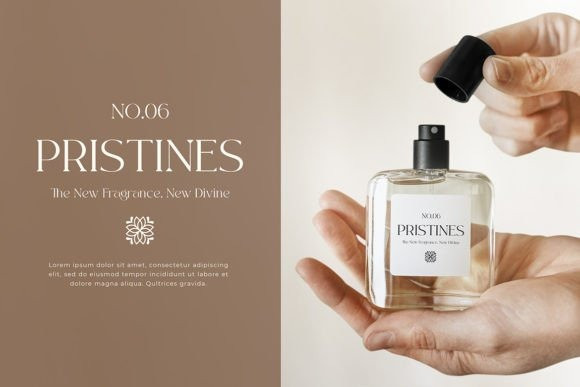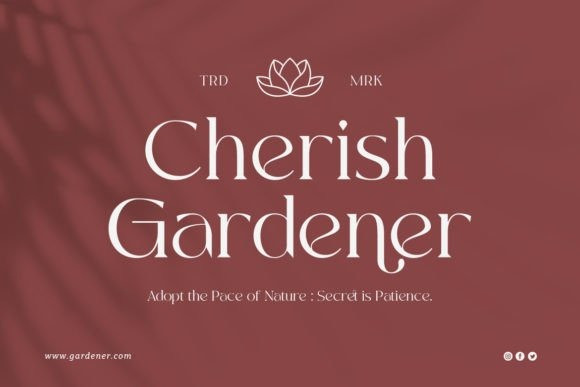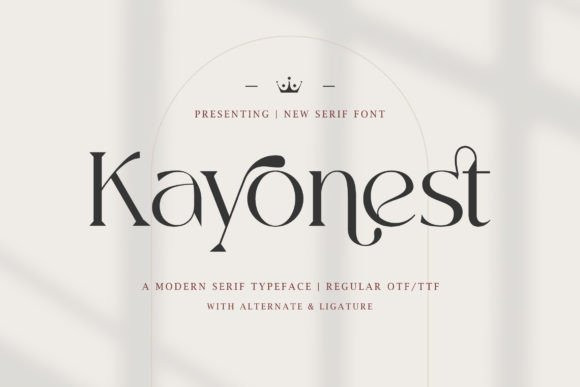
Kayonest is an modern serif that blends traditional influences into a contemporary aesthetic.
Elegantly crafted and easily be matched to an incredible large set of projects.
Use this font to achieve an exquisite, yet subtle look and maximum versatility.